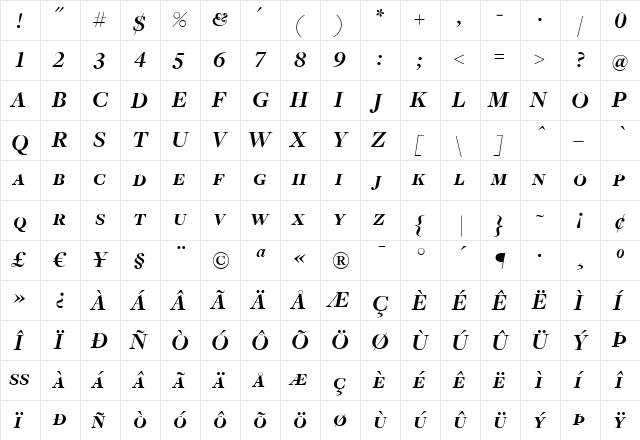
FreightDispBoldItalicSC Regular
Design Context for FreightDispBoldItalicSC Typeface
FreightDispBoldItalicSC is a composed and adaptable typeface that performs quietly and consistently across a wide range of design contexts. The slanted form adds forward momentum and visual energy. The heavy weight commands attention and anchors typographic hierarchies.
Pro Tip: Try FreightDispBoldItalicSC for annotation and caption copy alongside an upright companion — the contrast in angle creates a dynamic but ordered typographic system.